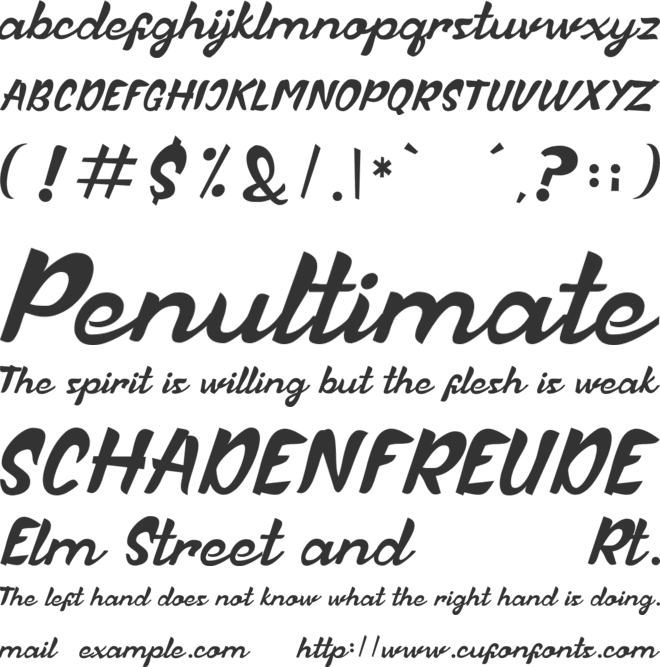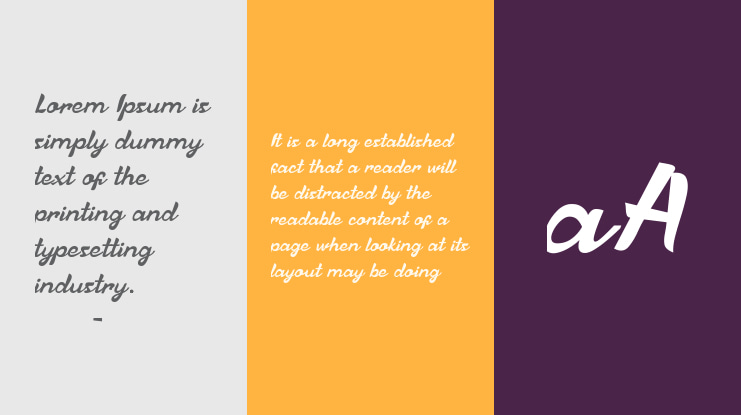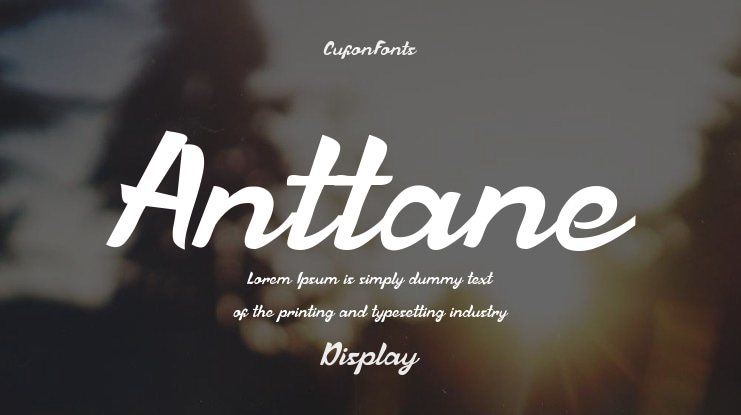
Anttane Font
Anttane is a bold and retro script font. Clean and a little bit quirky, this font is the perfect fit for all of your logos, branding, social media, and crafty DIY projects.